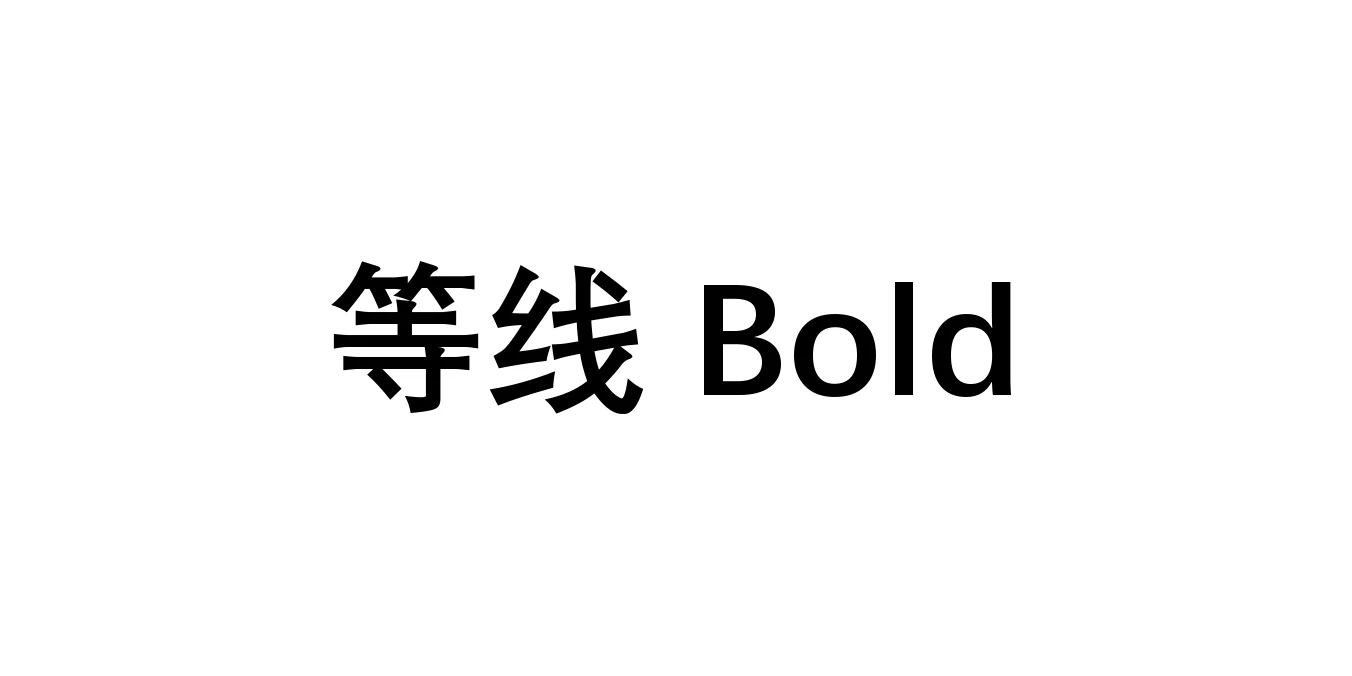
等线 Bold
Designed by Microsoft Corporation
| Category | Sans-serif / Heiti |
| Designer | Microsoft Corporation |
DengXian Bold (等线) is a modern sans-serif typeface developed by Microsoft to serve as a default font for Windows 10 and Microsoft Office 2016. It represents a significant shift in Chinese digital typography, designed specifically to replace older system fonts with a more contemporary 'Heiti' style. The font is characterized by its uniform stroke thickness and geometric structure, which provides exceptional clarity and legibility on high-resolution screens and mobile devices.
As the Bold weight of the family, this typeface is engineered to provide strong visual impact while maintaining the clean aesthetics of its regular counterpart. It removes the traditional flares and decorative elements found in older Mingti styles, resulting in a minimalist appearance that is highly favored in modern UI/UX design. Its development has made it one of the most recognizable and widely used fonts for Chinese-language digital interfaces, branding, and professional documentation.
Excellent for bold titles and section headers that require high visibility.
Optimized for readability in software menus, buttons, and mobile app interfaces.
Ideal for modern business identities and professional presentation decks.